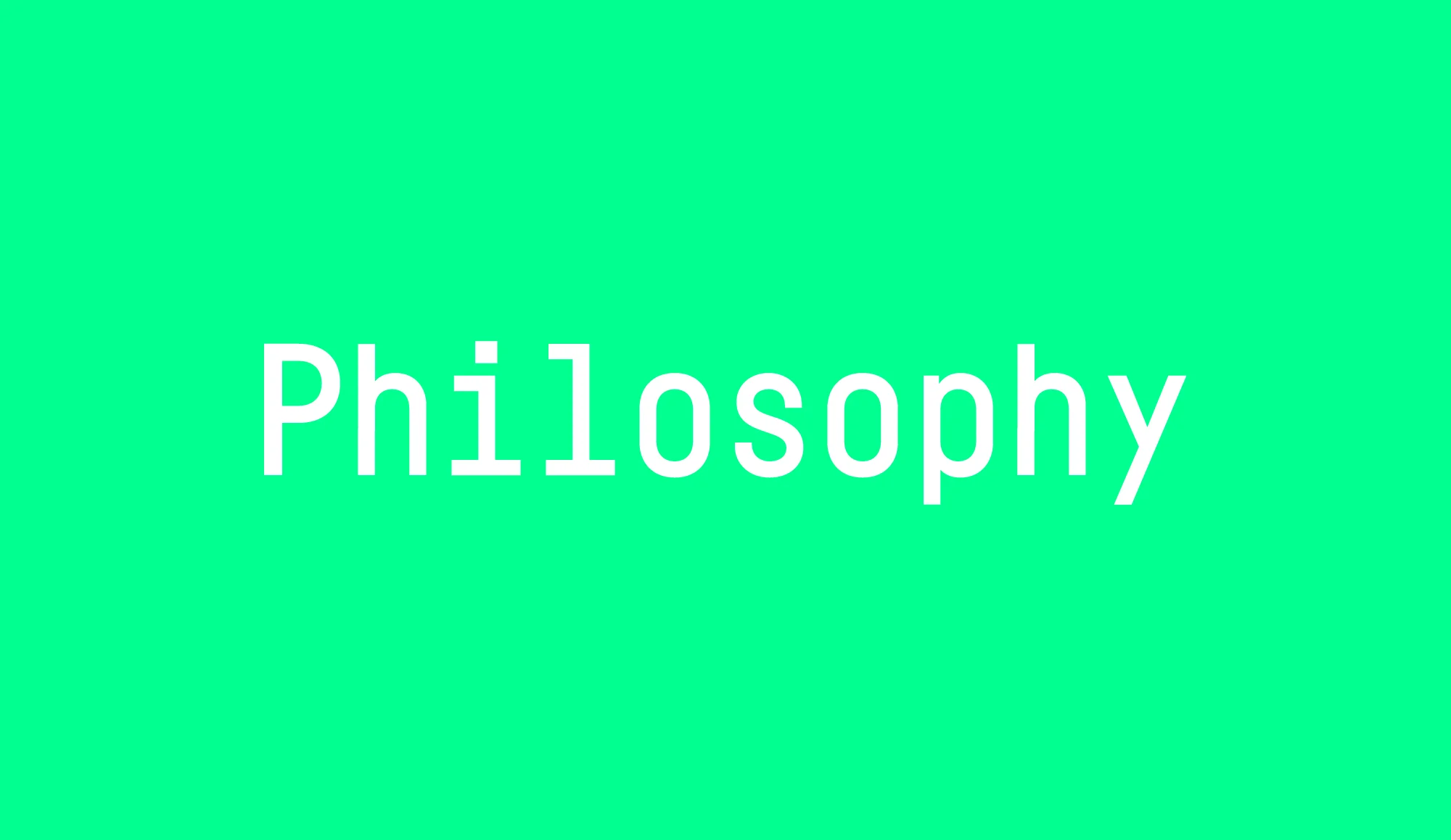
Fabrikat Mono
A monospaced companion to the Fabrikat sans-serif family from HvD Fonts, suited to code, tabular and technical setting.
Fabrikat Mono extends the Fabrikat family into a fixed-width format, carrying the geometric clarity of the parent design into contexts that demand monospaced spacing. The consistent glyph width makes it practical for code editors, technical documentation and data-heavy layouts. Page content was unavailable at time of writing, so specific weight and language coverage details may be incomplete.
The Mono suffix and foundry naming convention indicate a monospaced variant, likely derived from or companion to the Fabrikat sans-serif family; classified as monospaced sans based on its lineage and typical HvD Fonts conventions.